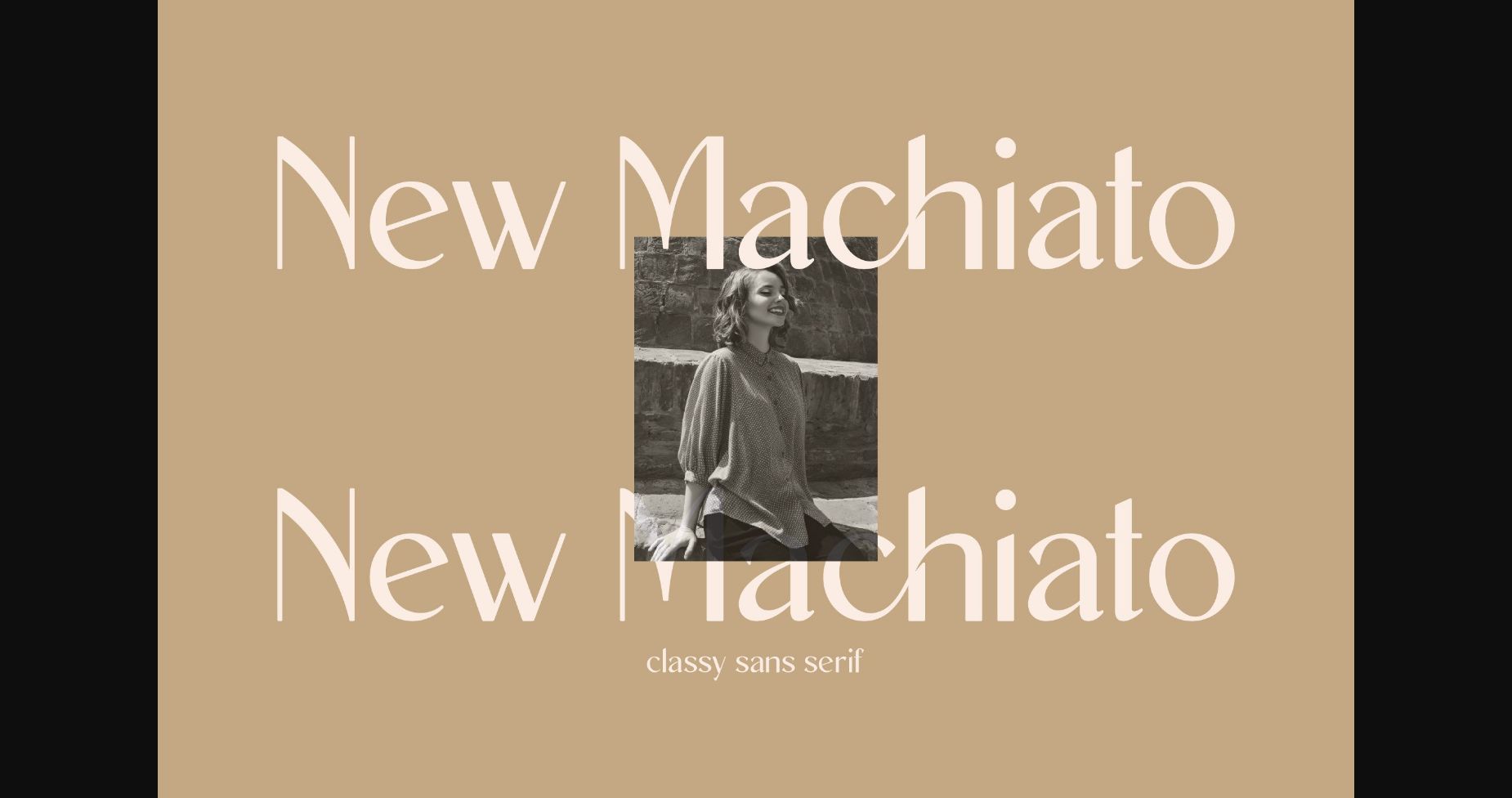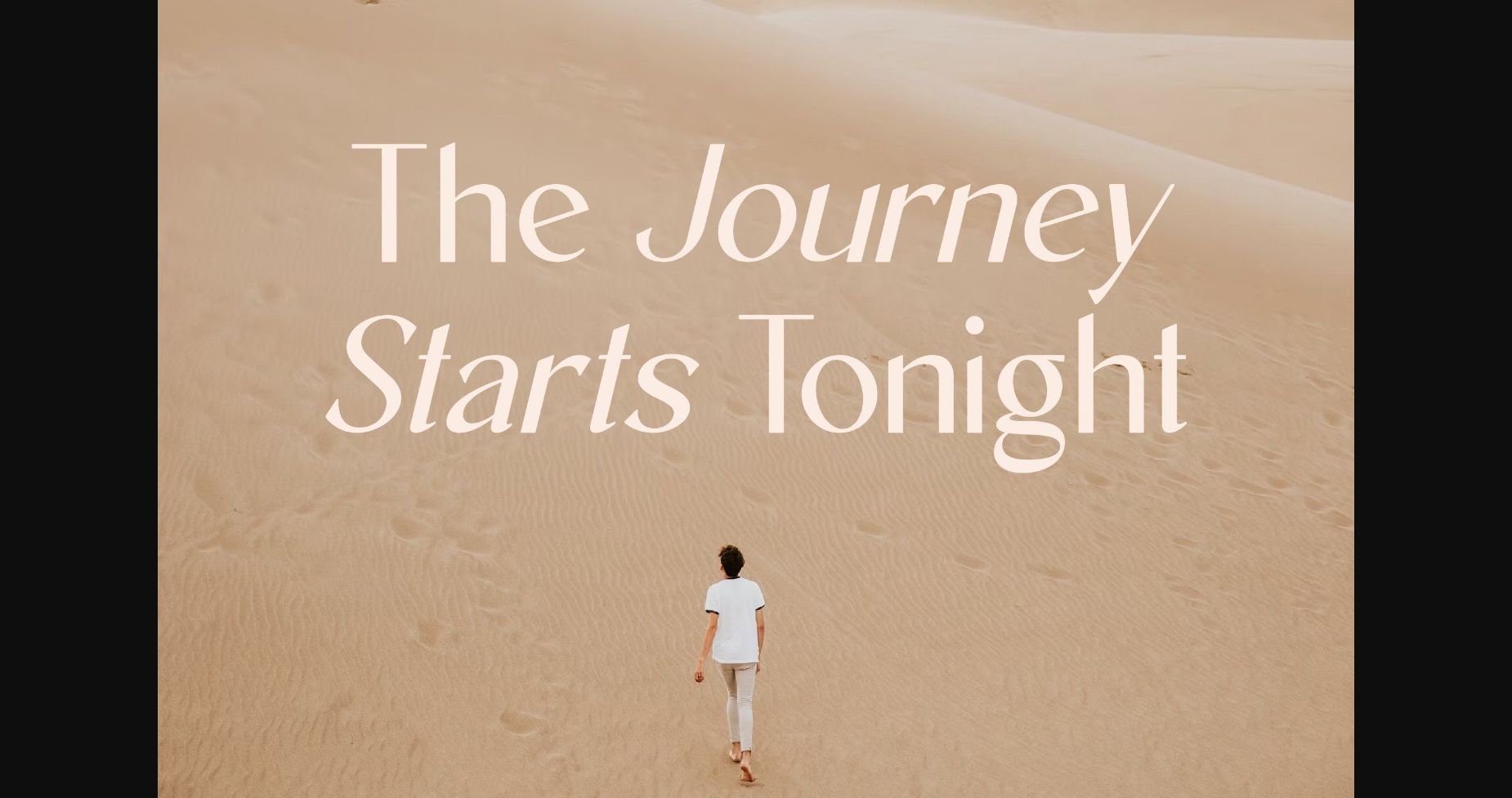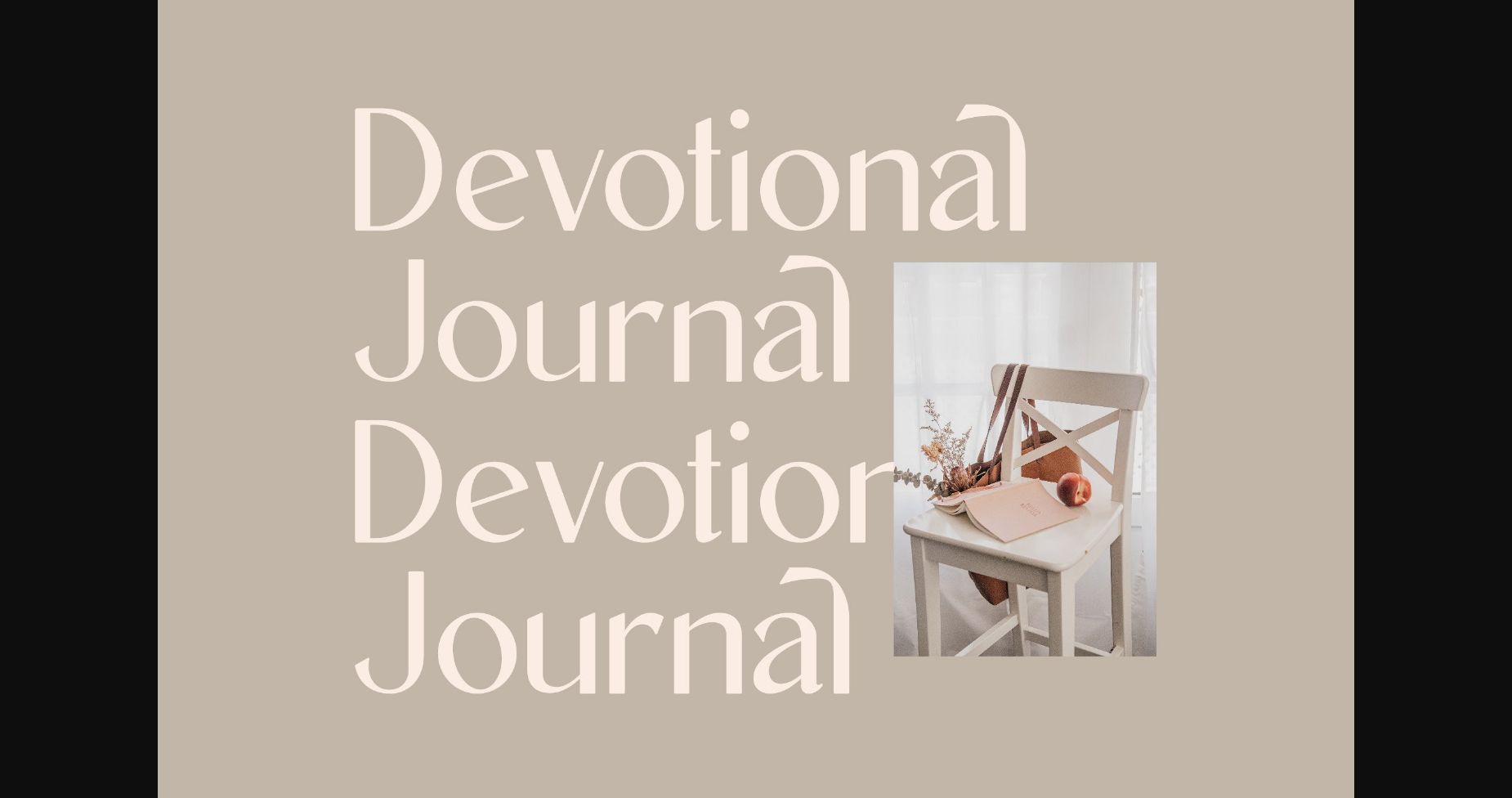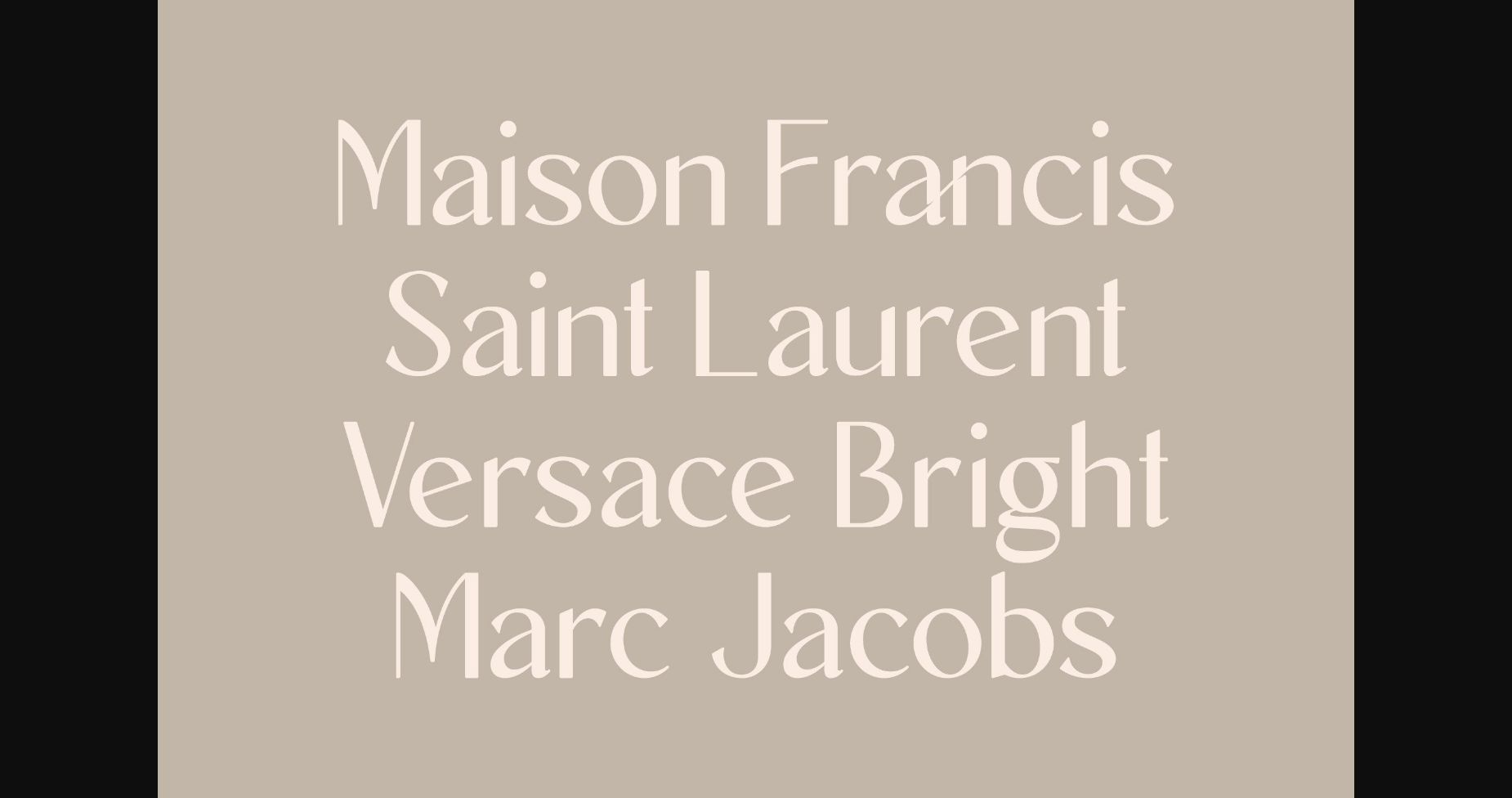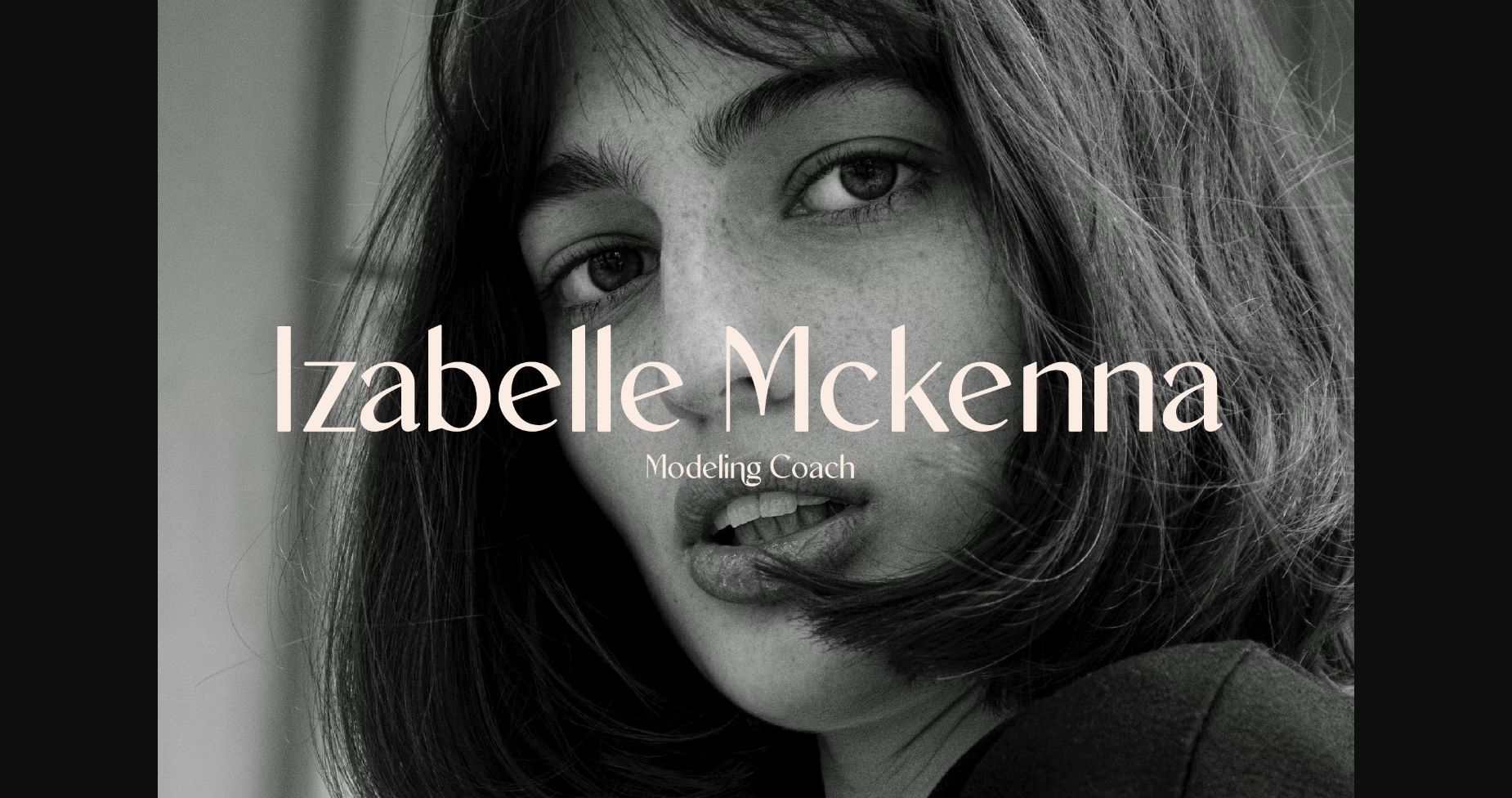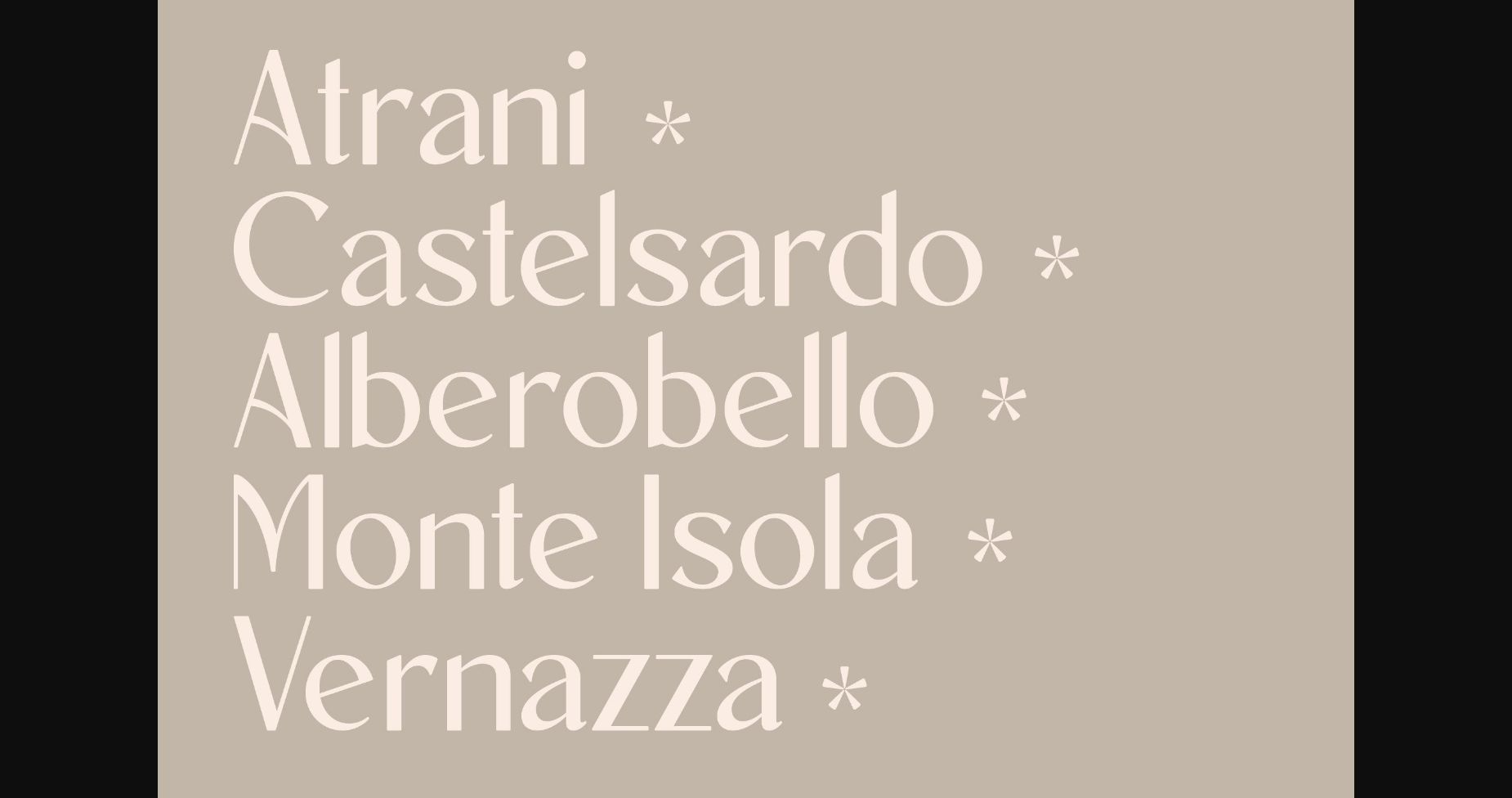
New Machiato Font
About New Machiato Font
New Machiato is a stylish serif font with a unique style and modern look. It is perfect for elegant and luxury logos, book or movie title design, fashion brands, magazines, clothes, lettering, quotes, and so much more. Fall in love with it, and let it take your projects to the highest level!